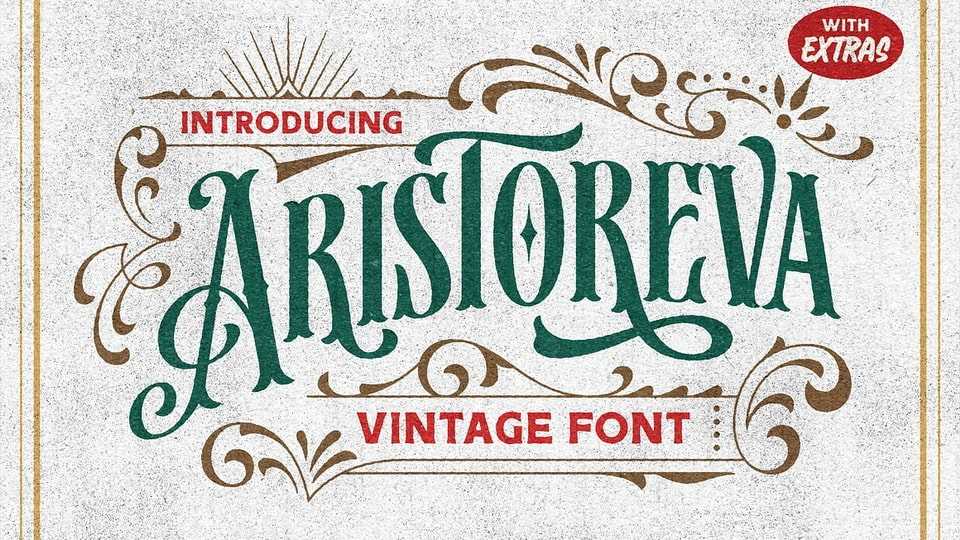
Download Aristoreva font, a decorative vintage typeface inspired by the timeless charm of Victorian typography and Art Nouveau from the 19th century.